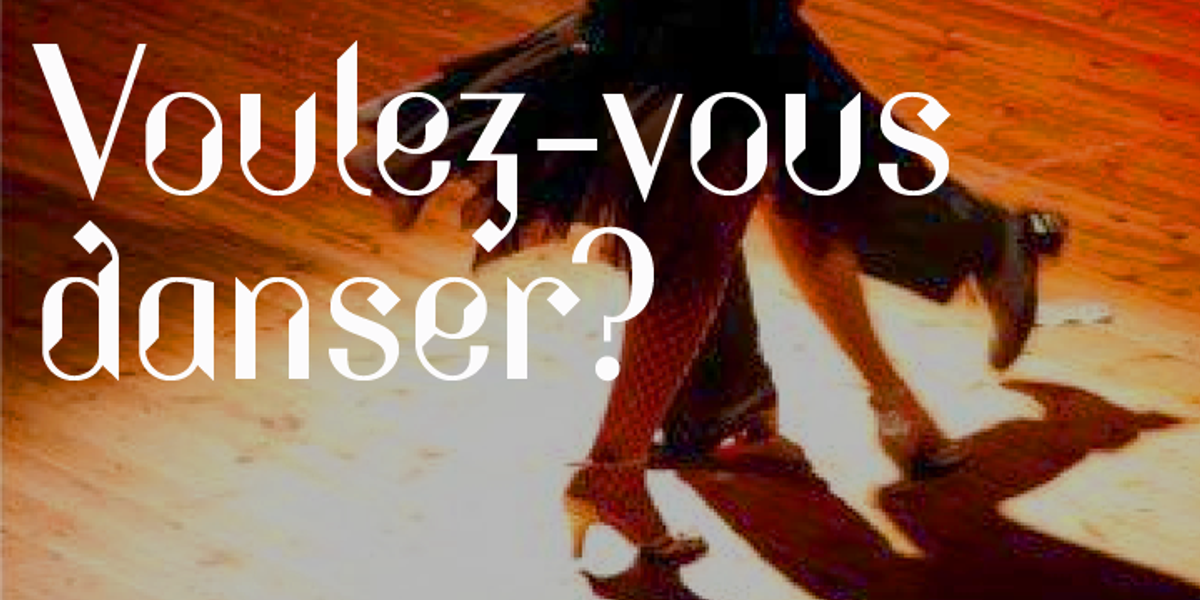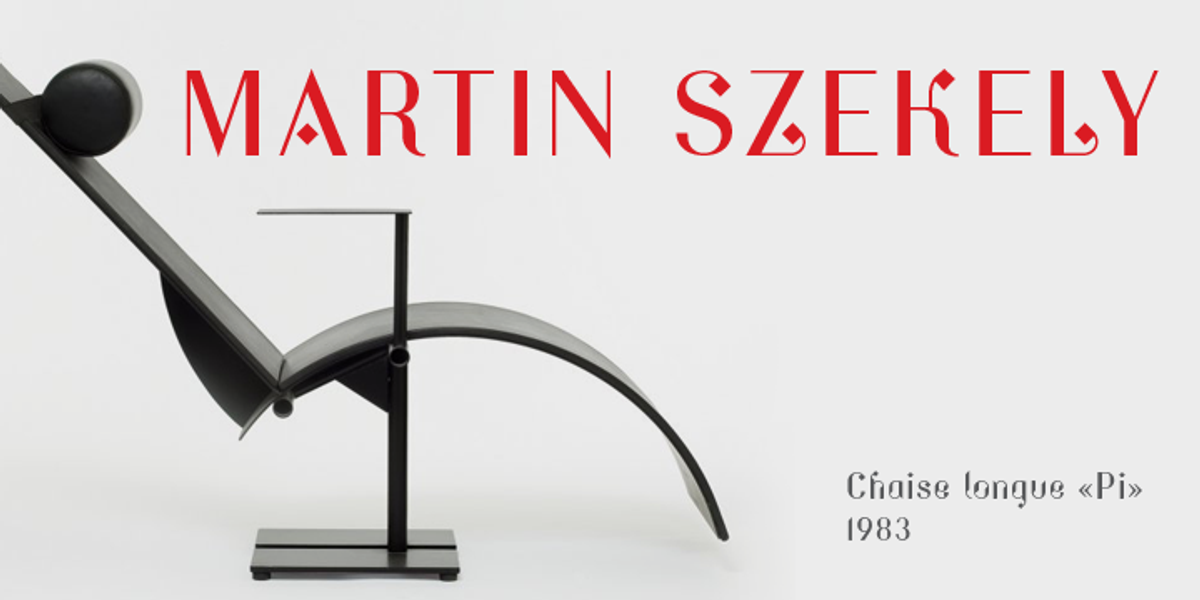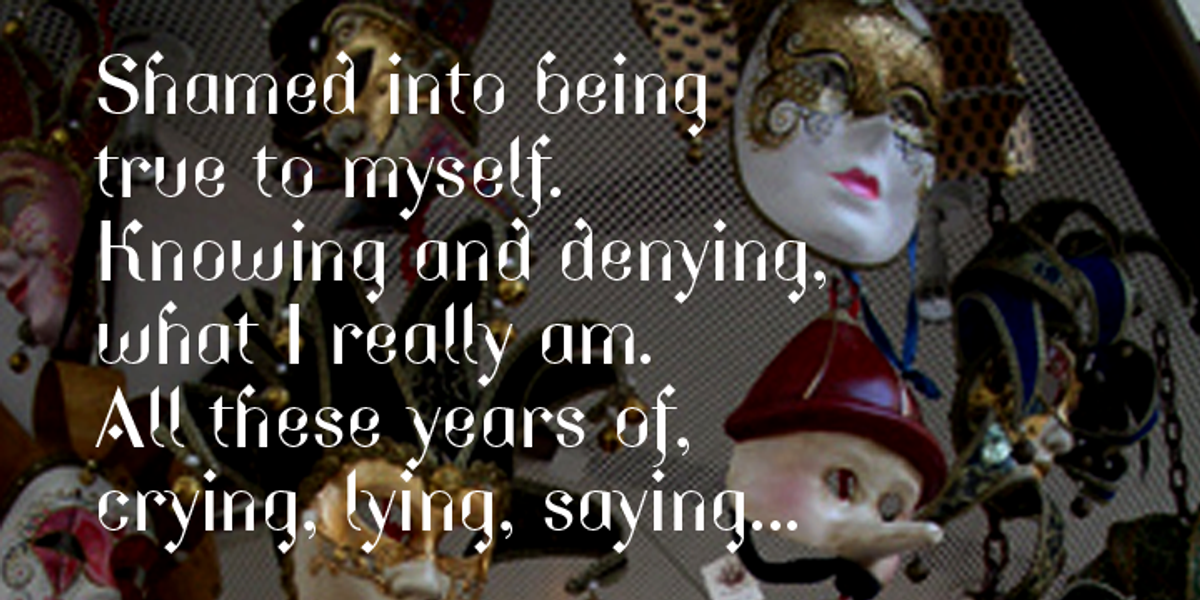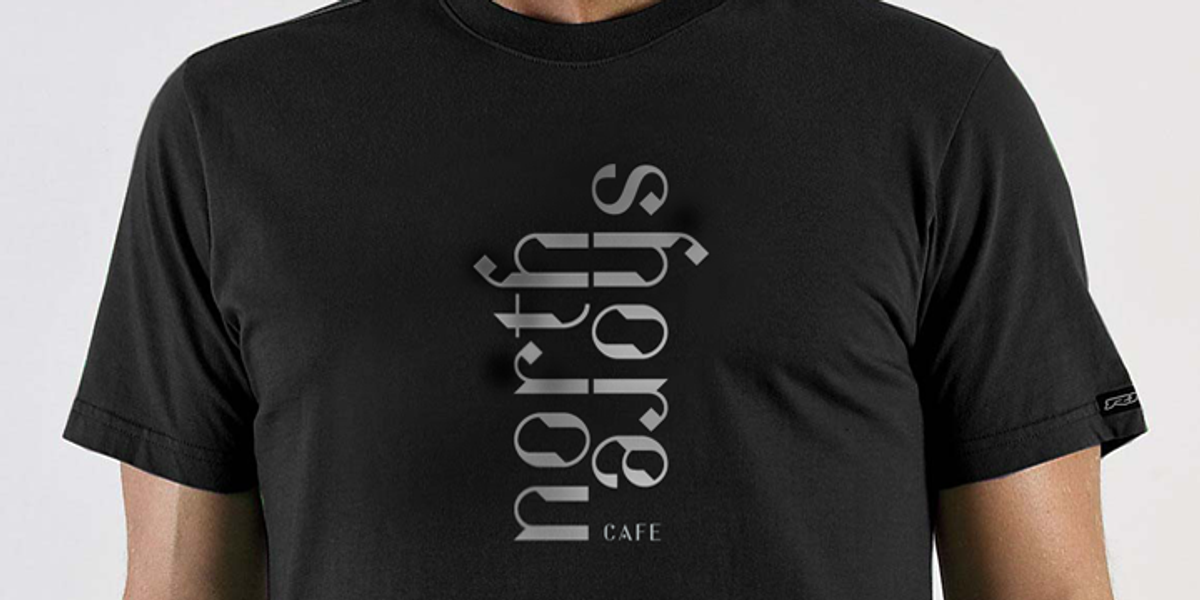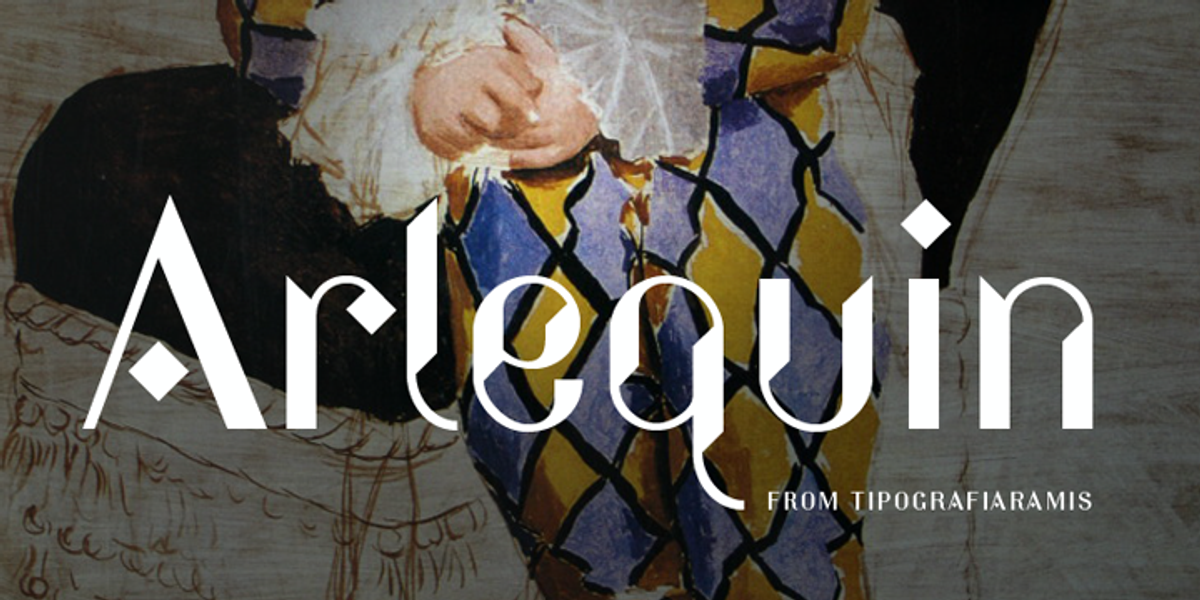
Arlequin
Arlequin is a sans serif font characterized by its strong contrast between thick and thin strokes. The lowercase letters are particularly distinctive, featuring bold angular shapes combined with delicate arched curves. This unique design makes Arlequin ideal for use in headlines and short blocks of text where it can create a visually striking impact.